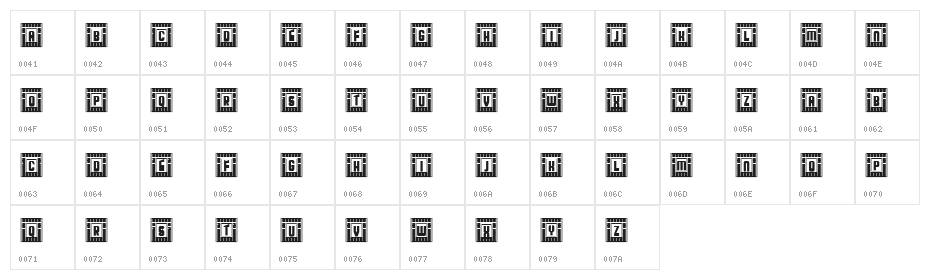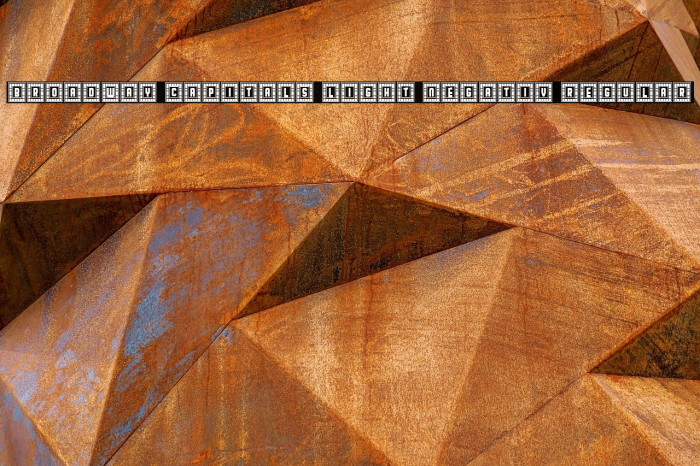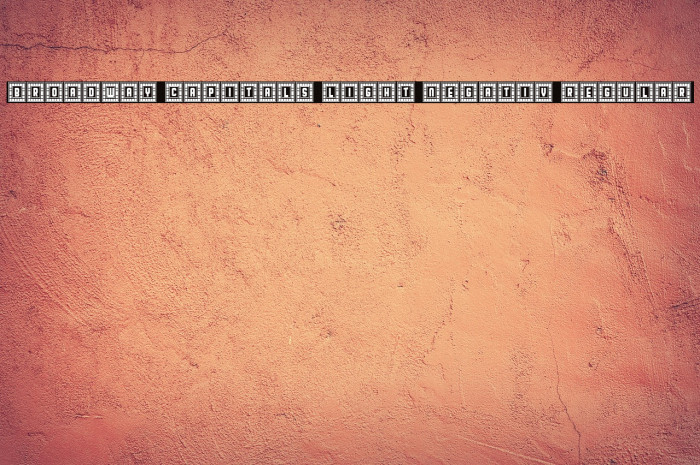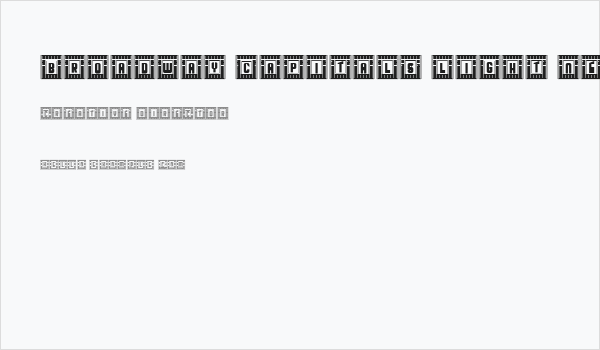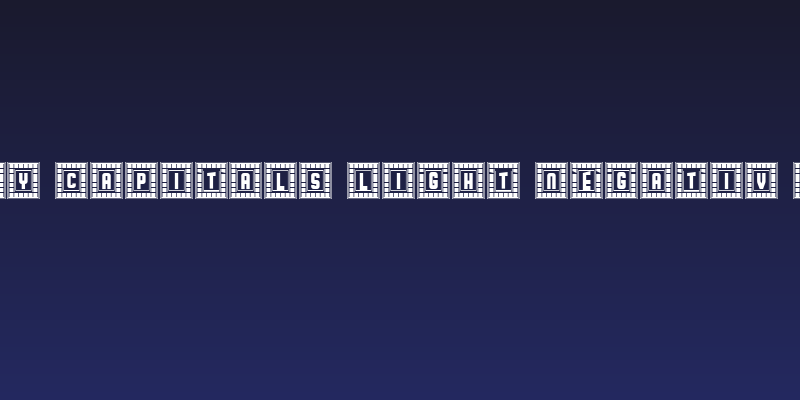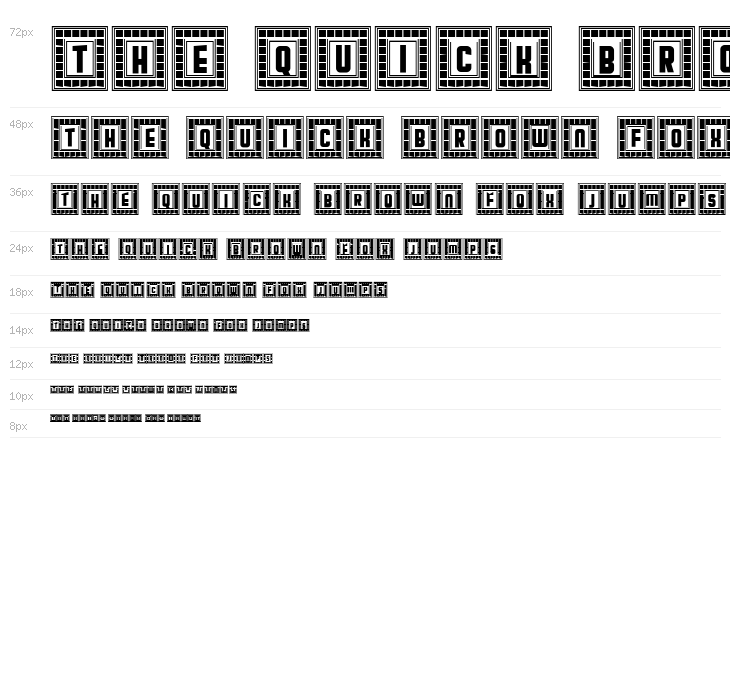
Broadway Capitals Light Negativ Regular Font
Broadway Capitals Light Negativ Regular Description
This font features a bold and decorative style, characterized by its unique negative space design. Each letter is enclosed within a square frame, filled with a grid pattern that creates a striking visual effect. The characters are uppercase and exhibit a geometric, structured form, making them stand out prominently. The design is reminiscent of vintage marquee signs, offering a nostalgic yet modern appeal. The font's intricate detailing and bold presence make it ideal for eye-catching displays.
| Use Case | Headlines, Logos, Signage |
| Proposed Projects | Ideal for theater posters, vintage-themed branding, signage, and any project requiring a bold, eye-catching display. |